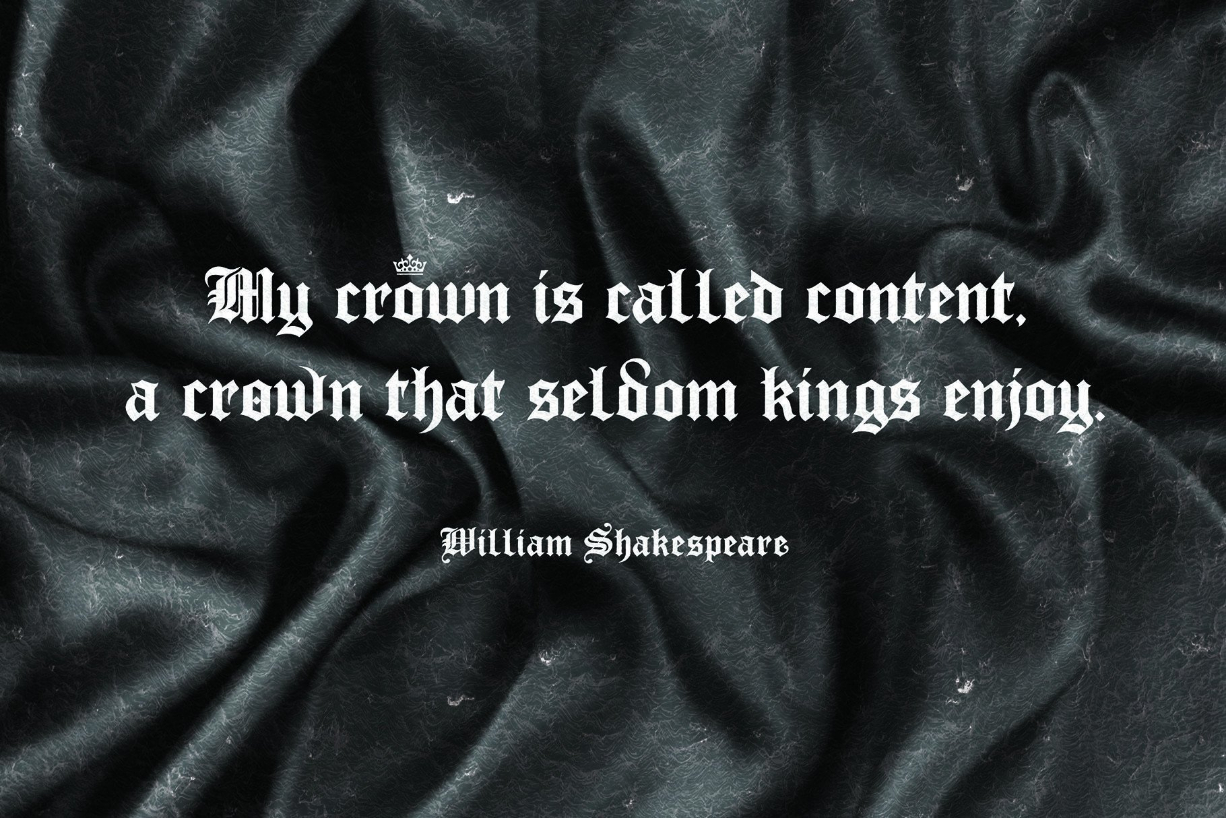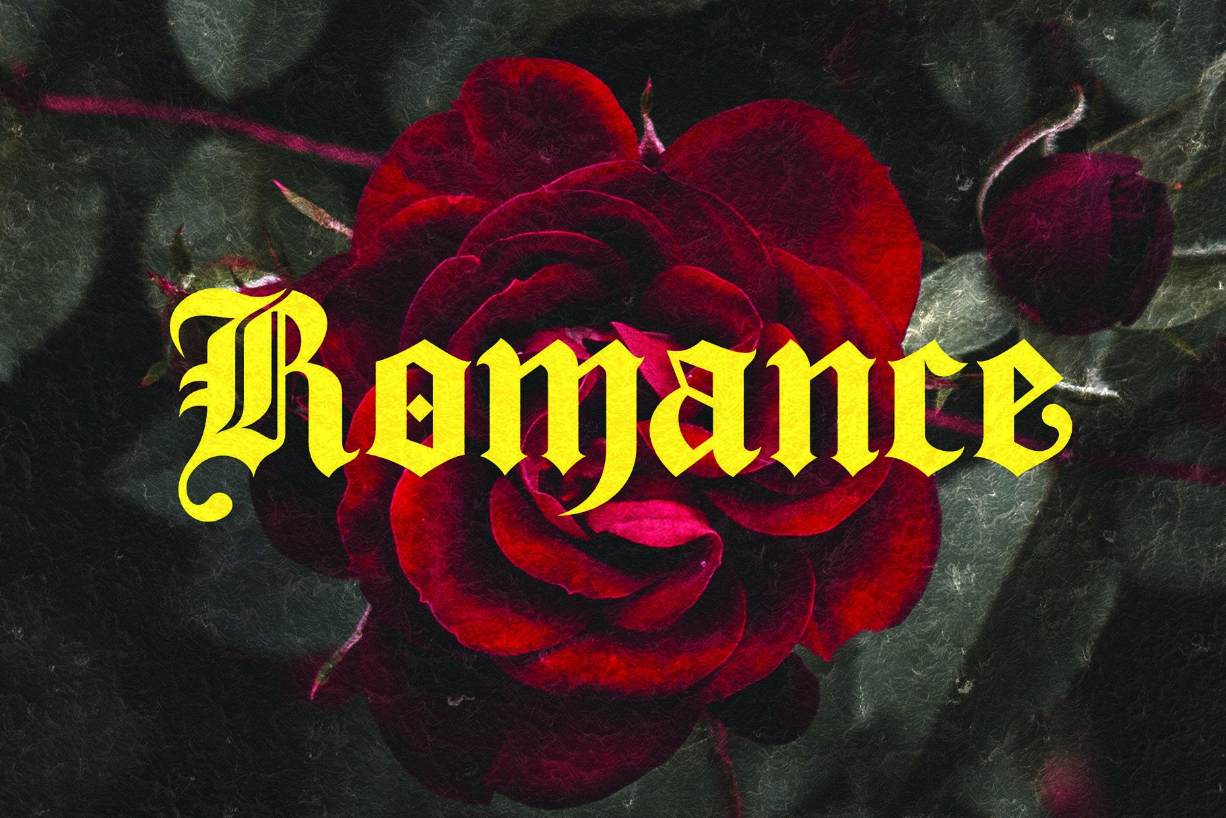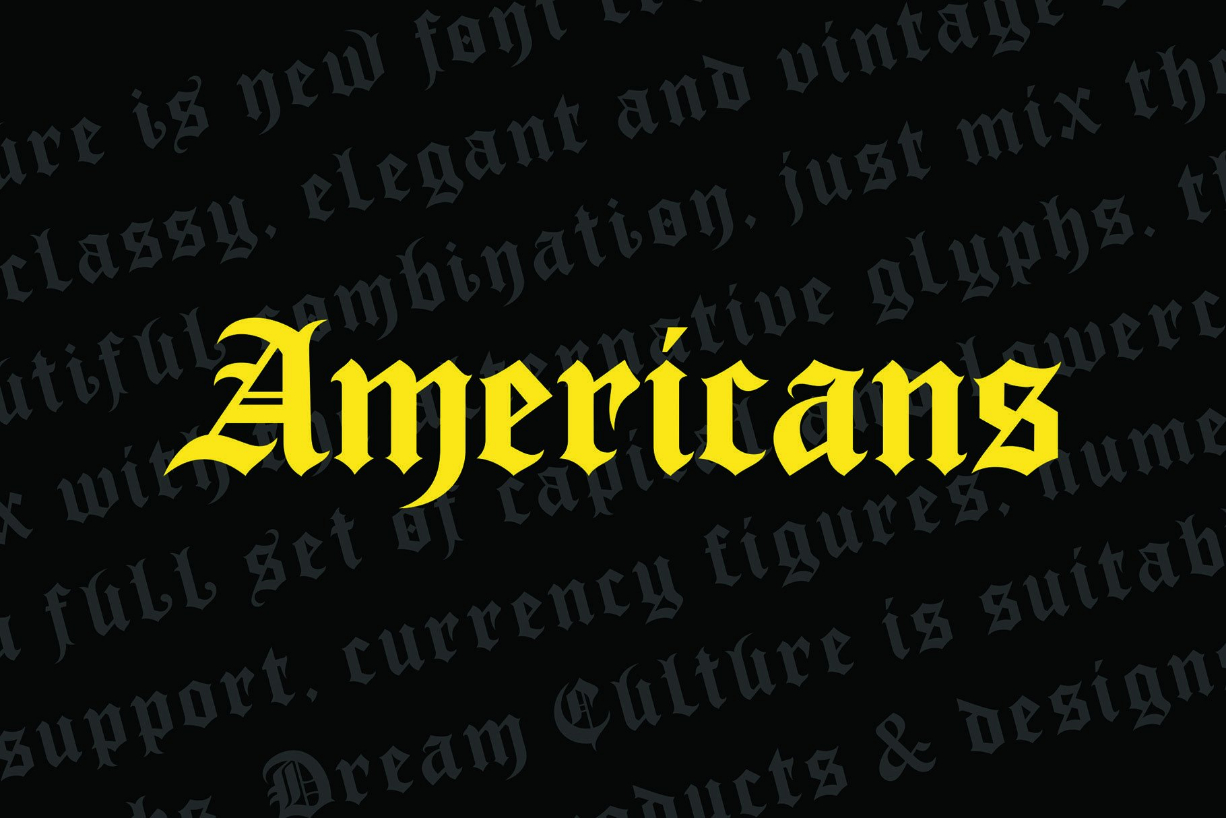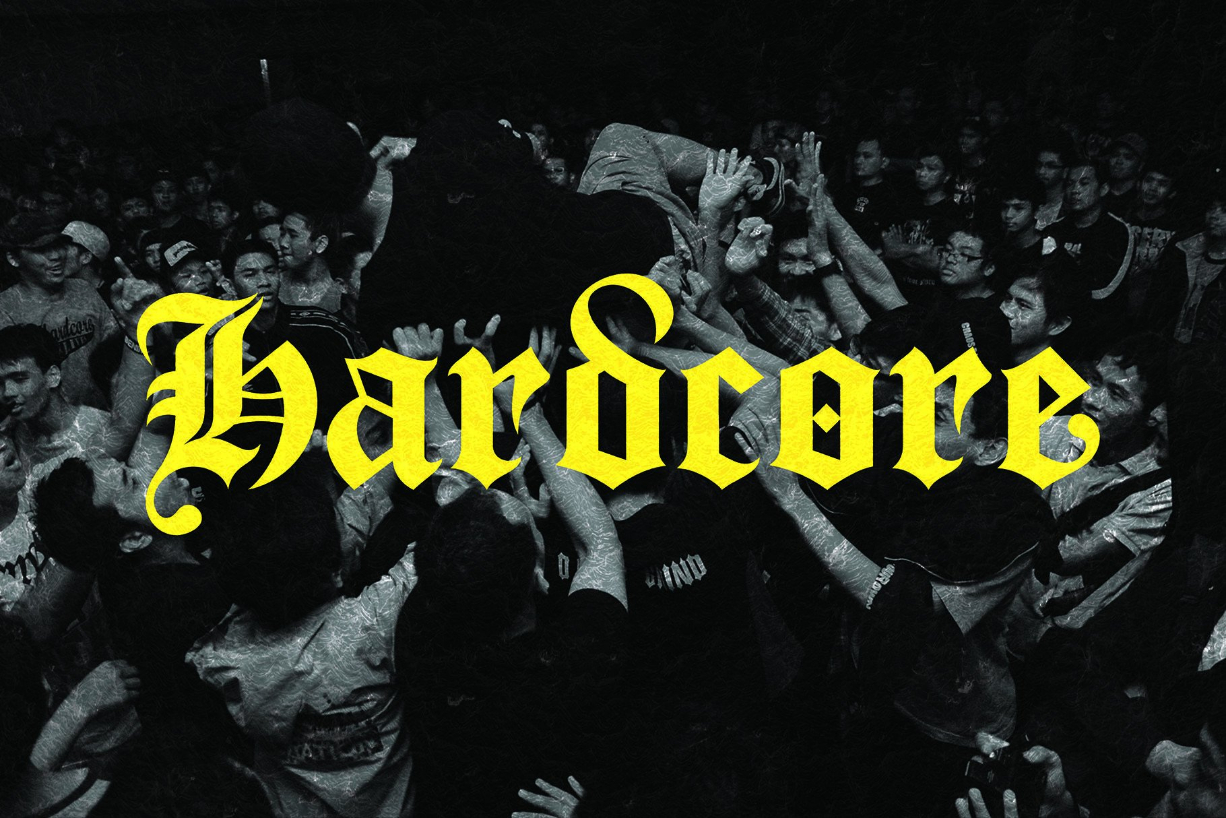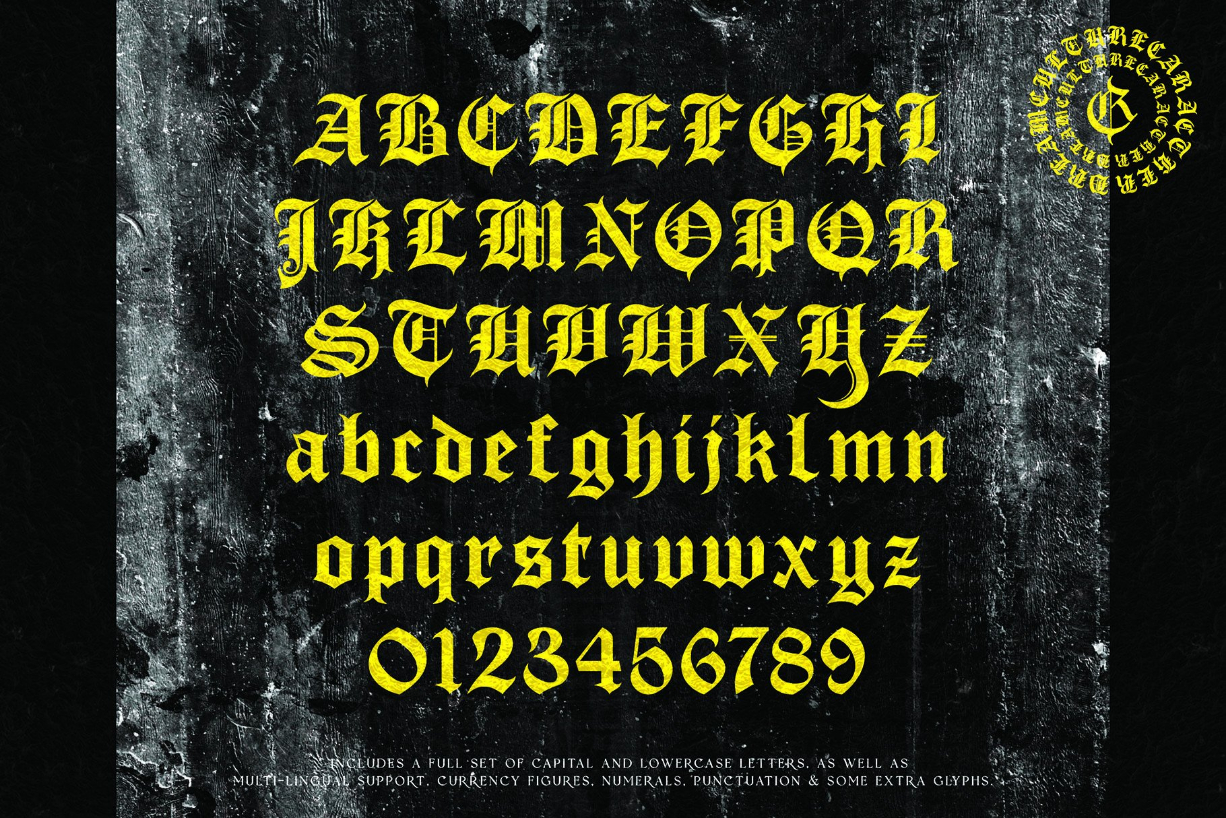
About Dream Culture Font
The Dream Culture is a new blackletter font with classy, elegant, and vintage characters. To create a beautiful combination, just mix the uppercase and lowercase with the alternative glyphs.